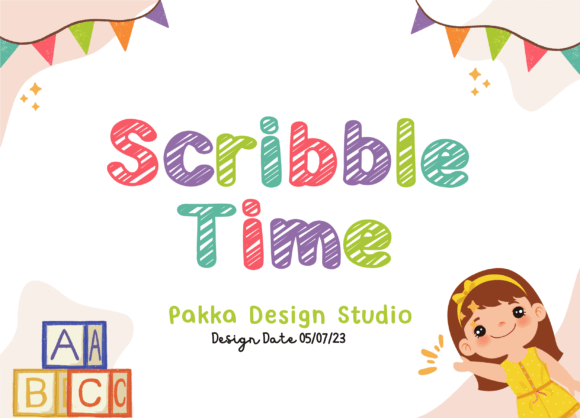
Introducing the Scribble Time Font, a decorative font that is guaranteed to add a touch of whimsy and excitement to any design! Created by the talented team at Pakka Design Studio, this font captures the exuberant and carefree spirit of youthful celebration, making it the perfect choice for those looking to elevate their designs for kids' events.
With its hand-drawn appearance and playful scribbles, this font brings a sense of joy and imagination to every letter. Imagine colorful balloons floating in the air, confetti sprinkling down, and laughter filling the room - that's the atmosphere this font creates! It's like having a kids' party right at your fingertips.
Not only does the Scribble Time Font exude a carefree creativity, but it also reflects the spontaneity and energy that are synonymous with kids' celebrations. It's the ultimate tool to infuse a festive and vibrant atmosphere into your party invitations, decorations, and other designs. Let your creativity run wild as you explore the endless possibilities this font has to offer.
But why stop at parties? This font is versatile and can be used for a variety of purposes. From adorable birthday cards to charming nursery prints, the Scribble Time Font adds a touch of whimsical charm to any project. It's the perfect way to make your designs stand out and captivate your audience.